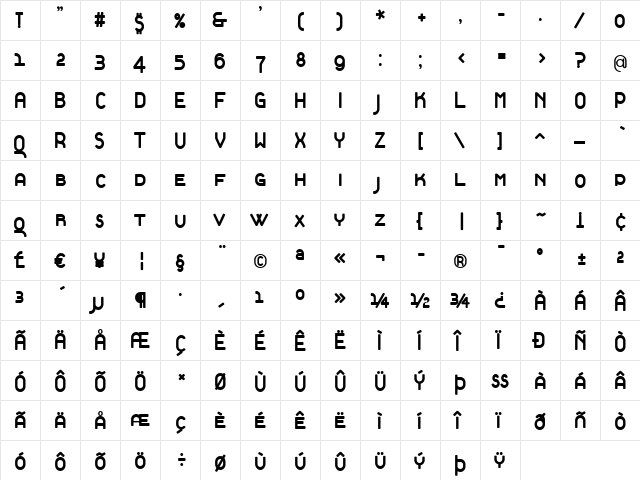
TantalusBoldSmallCaps Regular
Design Context for TantalusBoldSmallCaps Typeface
TantalusBoldSmallCaps is a composed and adaptable typeface that performs quietly and consistently across a wide range of design contexts. The heavy weight commands attention and anchors typographic hierarchies.